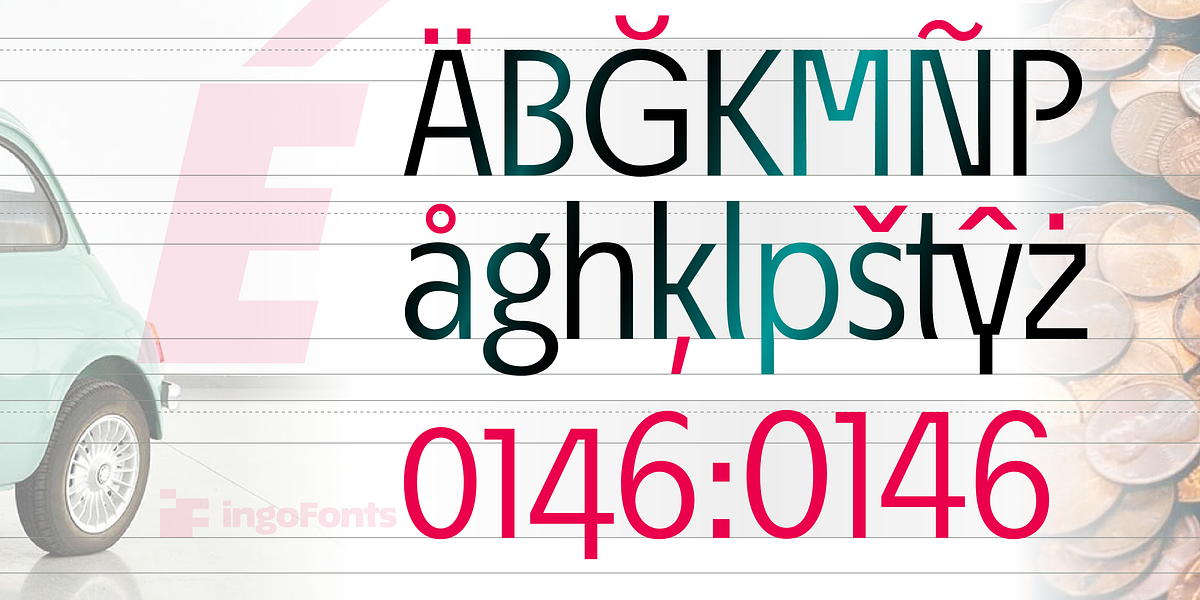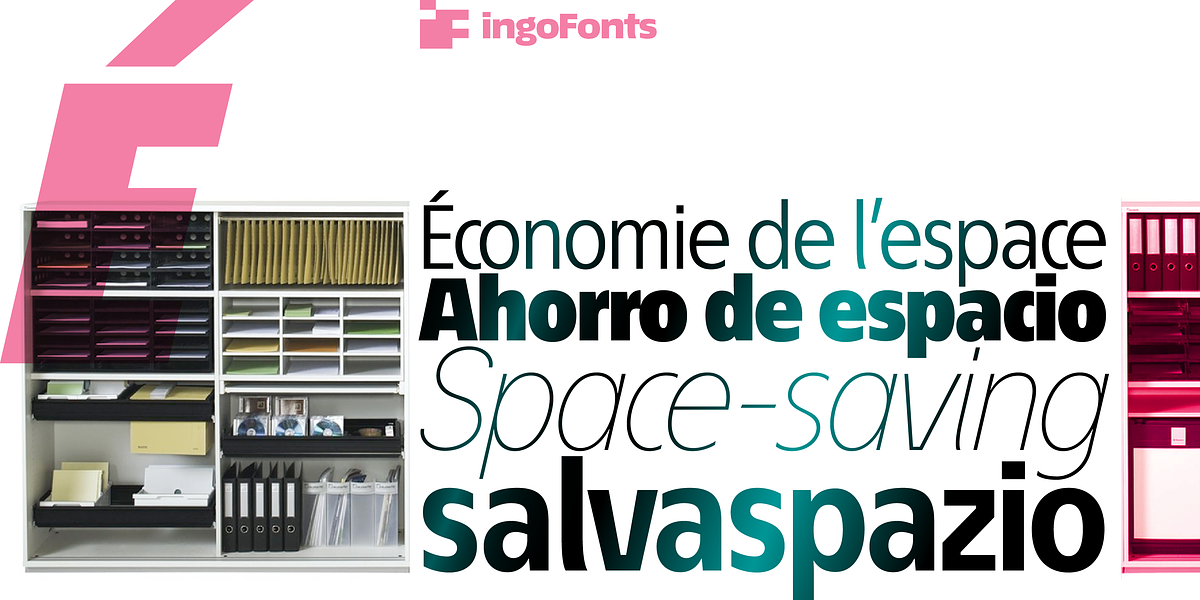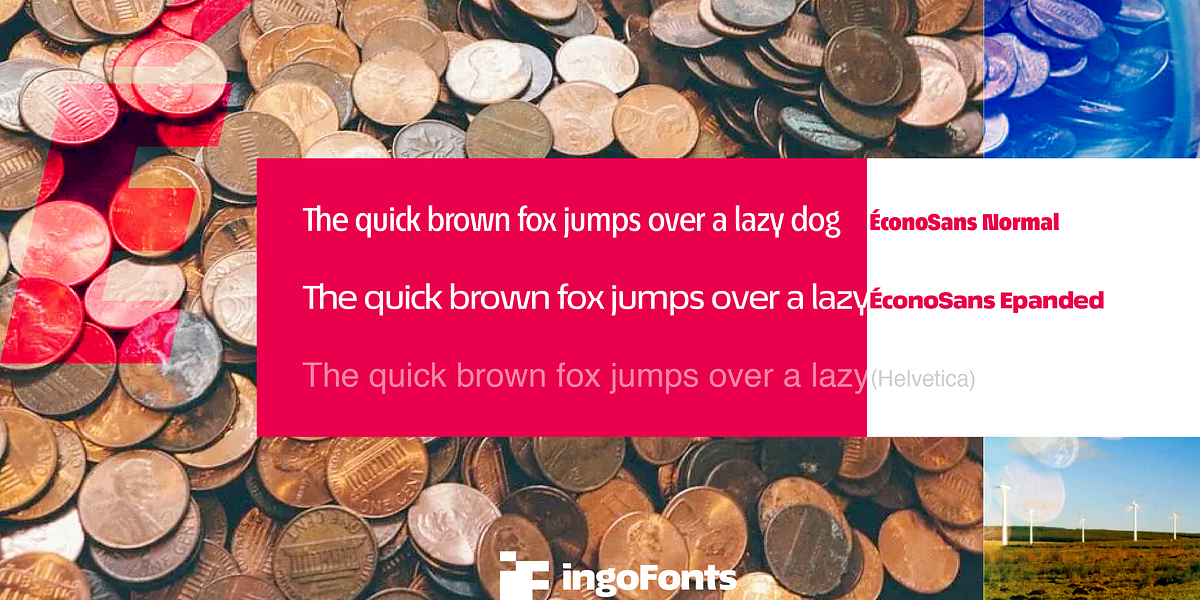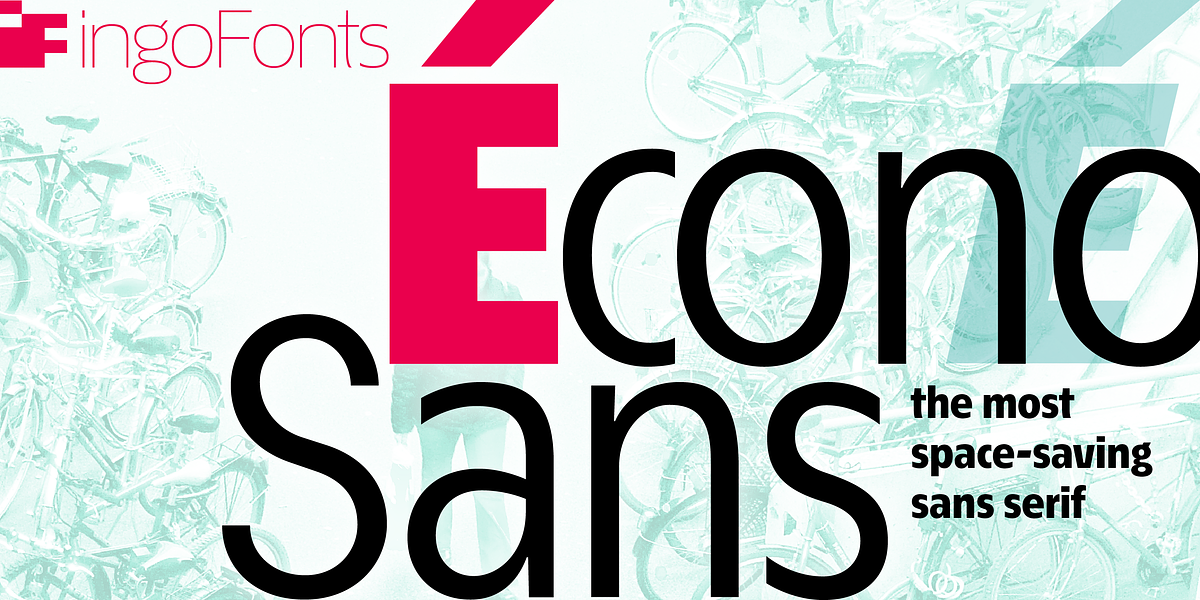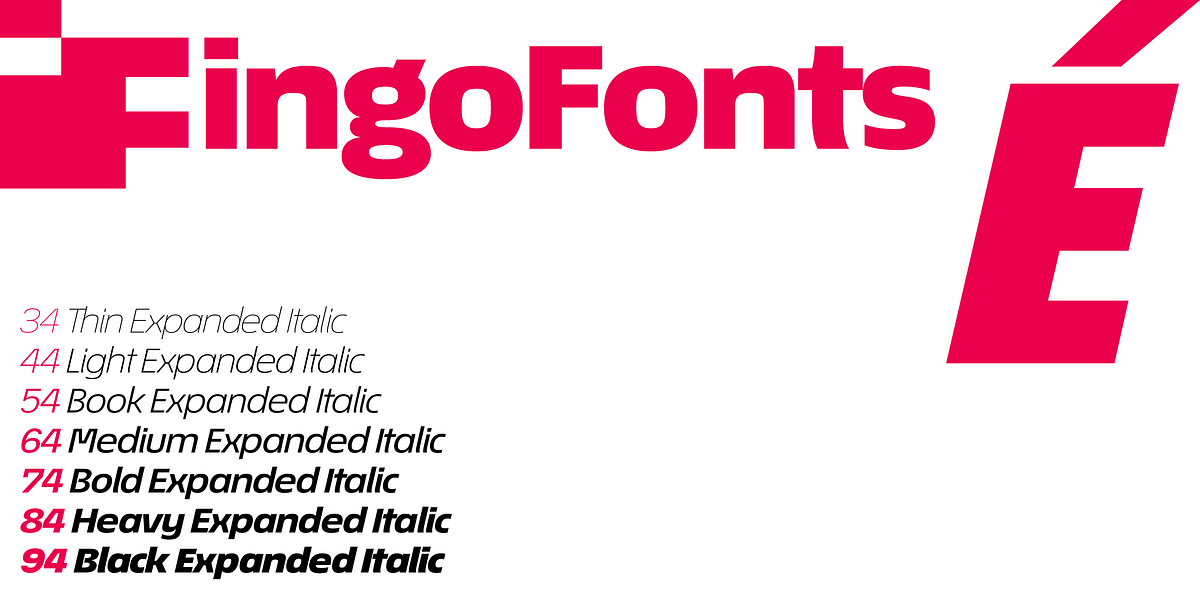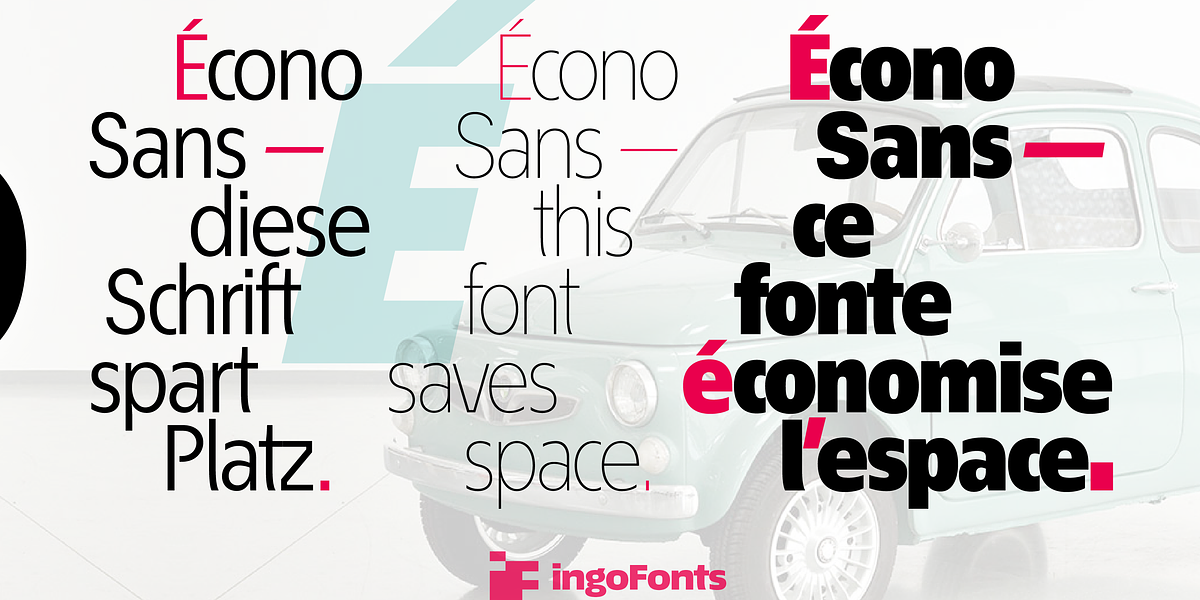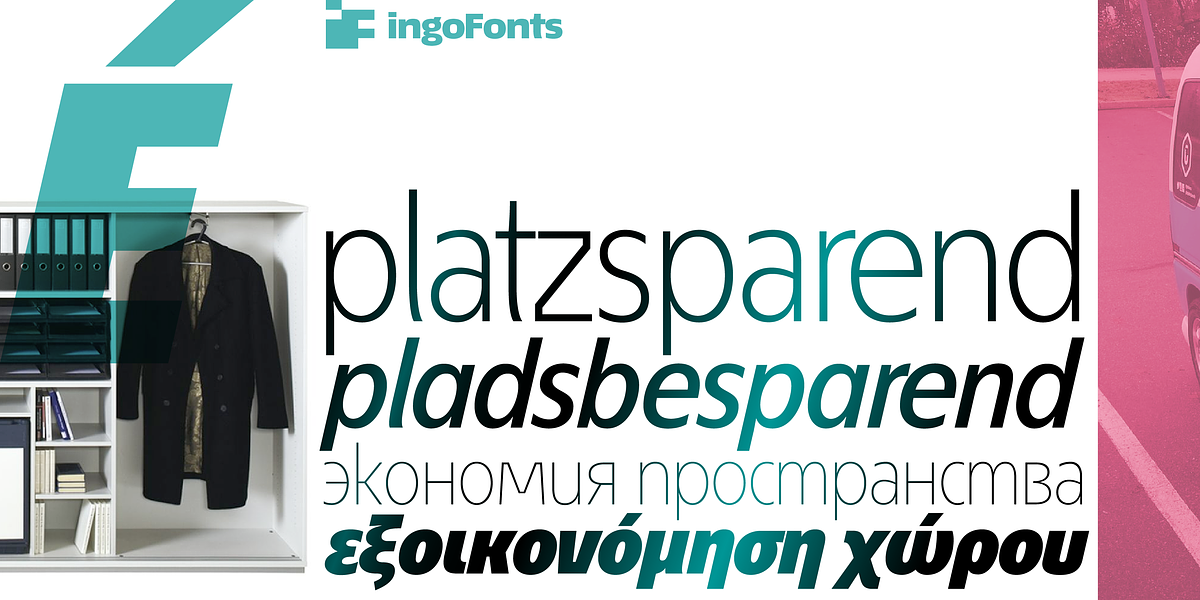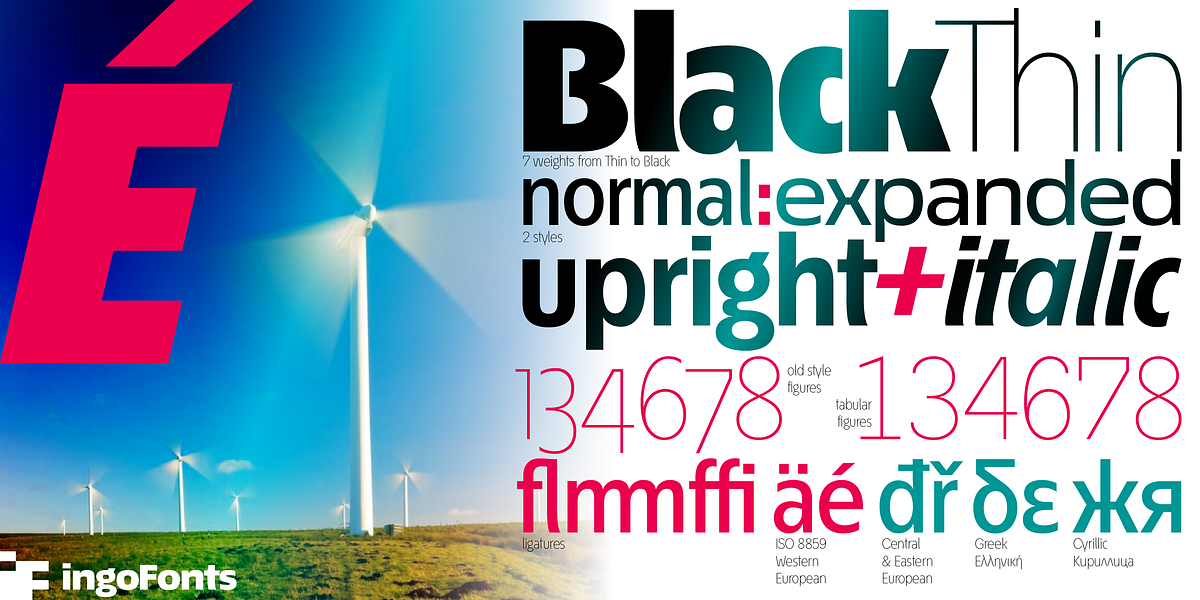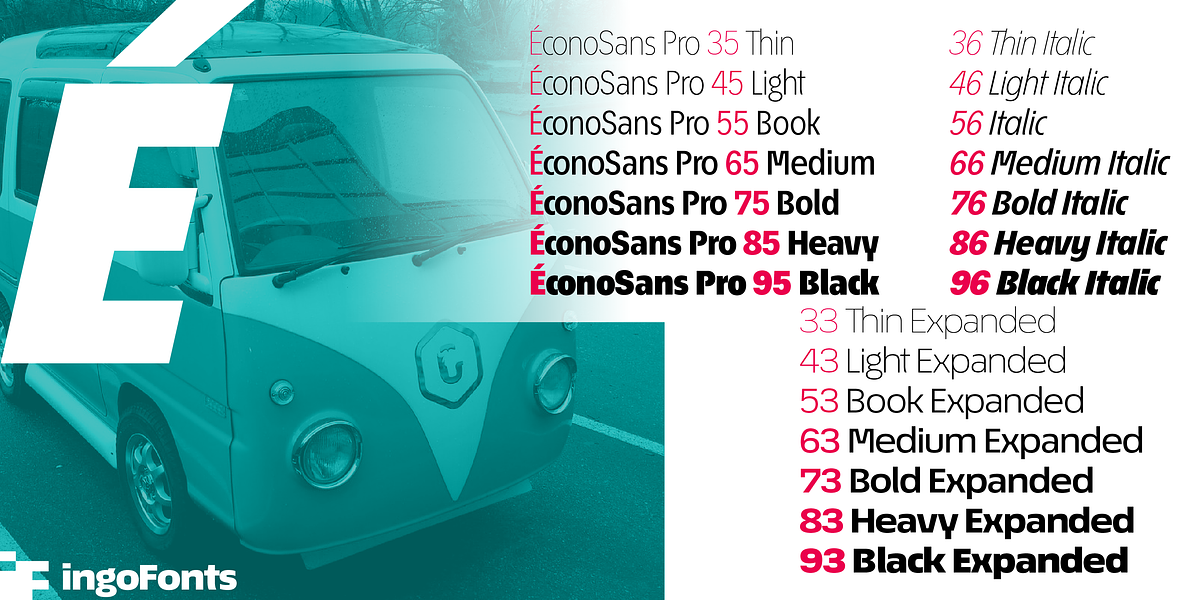
Écono Sans Pro
The ingoFont Écono Sans is a neo-grotesque sans serif font designed specifically for space efficiency. Its tight letter spacing and sparse ascenders and descenders allow for maximum text density without sacrificing readability. The font features distinct character forms, including unique designs for 'triangular' characters like v, w, y, k, z and their uppercase counterparts. The open form of B, R, and P is also notable.